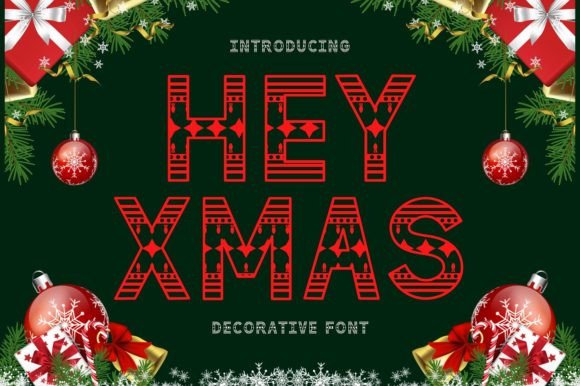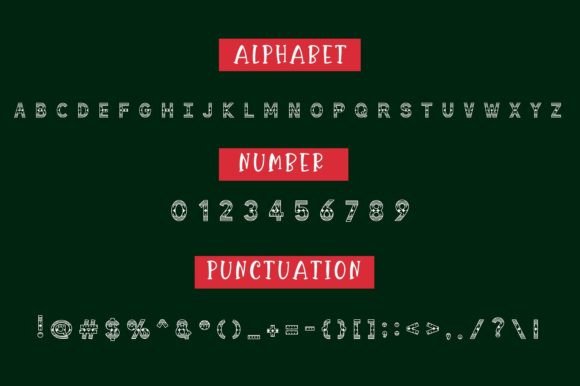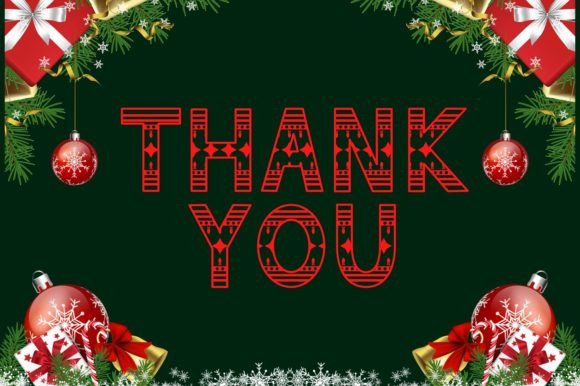
Hey Xmas Font: A Cute Holiday Decorative Font
About the Hey Xmas Font
Introducing the Hey Xmas Font, a beautifully crafted typeface designed to elevate your creative projects. Hey Xmas is a cute Christmas decorative font. It embodies playfulness and authenticity and is the perfect choice for all your favorite projects, or even for blog posts, logos, branding, ads, invitations, greeting cards, planners, photo albums, decorations, and much more. Add it to any of your designs, and enjoy the results!
Hey Xmas’s playful, slightly quirky style shines in headlines, short bursts of text on packaging or social media graphics, and festive advertising materials. It’s ideal for projects aiming for a charming, approachable feel, like children’s books, holiday cards, or whimsical branding for small businesses. Avoid using it for body copy or UI elements; its decorative nature compromises readability in extended text.
Pair Hey Xmas with a clean sans-serif like Open Sans for a balanced contrast, or a more traditional serif like Playfair Display for a sophisticated, yet festive combination. For a bolder, more playful outcome, consider pairing it with a handwritten script font, maintaining consistency in the overall festive mood.
The font’s core personality is undeniably cheerful and festive, making it unsuitable for serious or corporate applications. Its decorative elements work best when used sparingly to highlight key words or phrases.